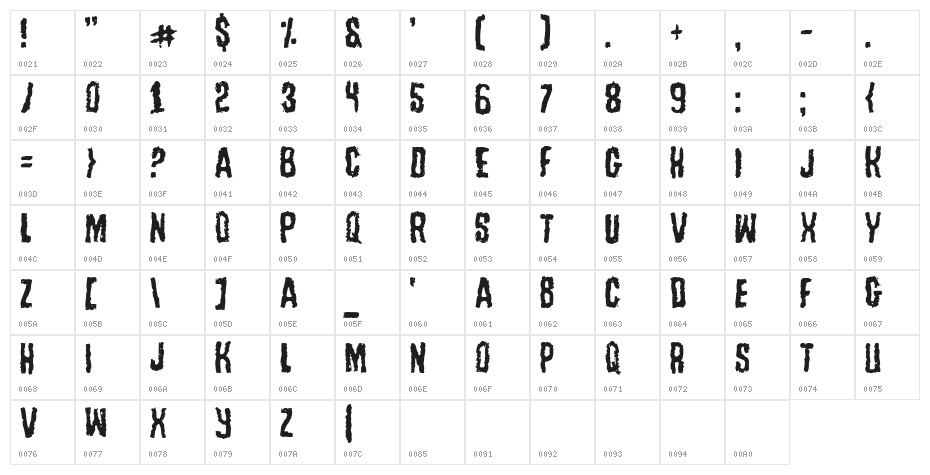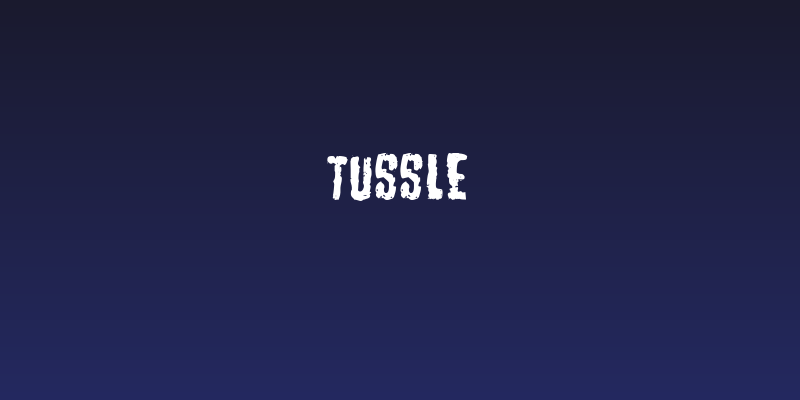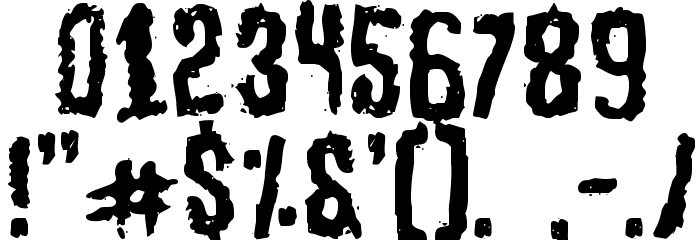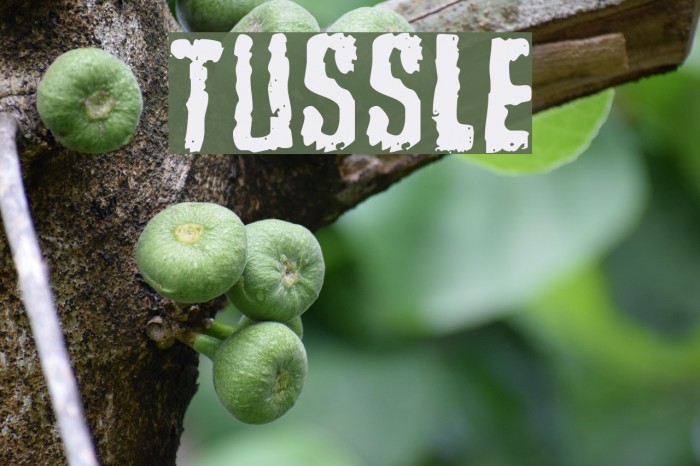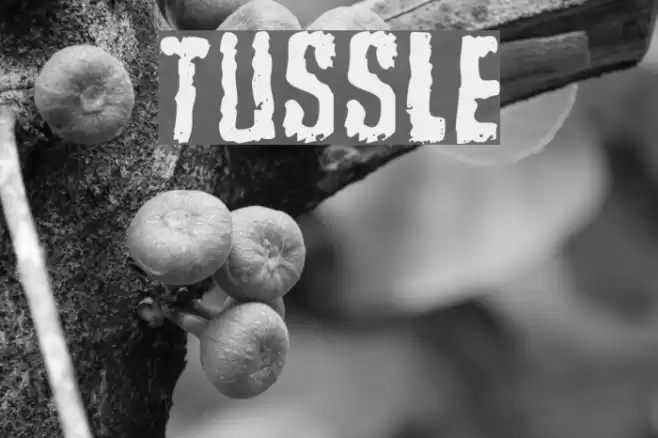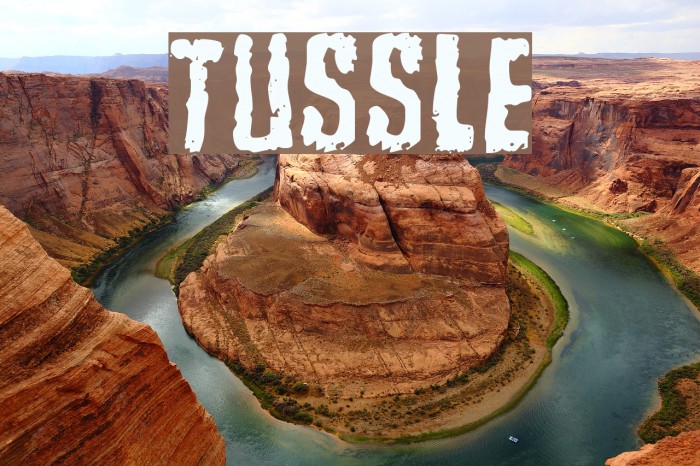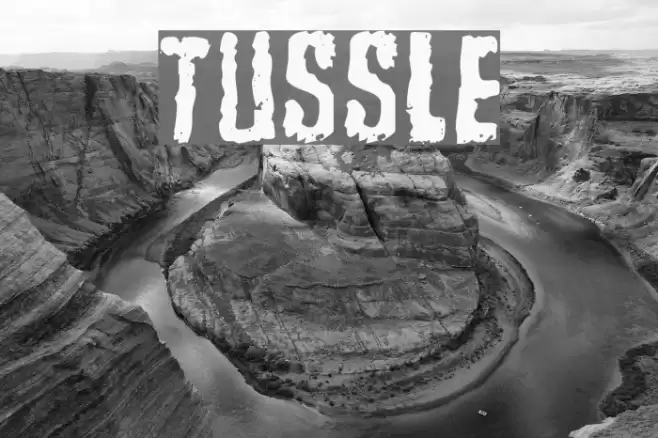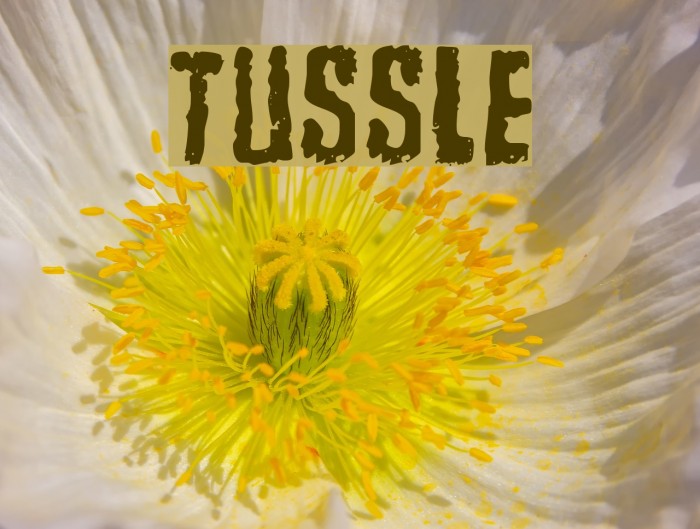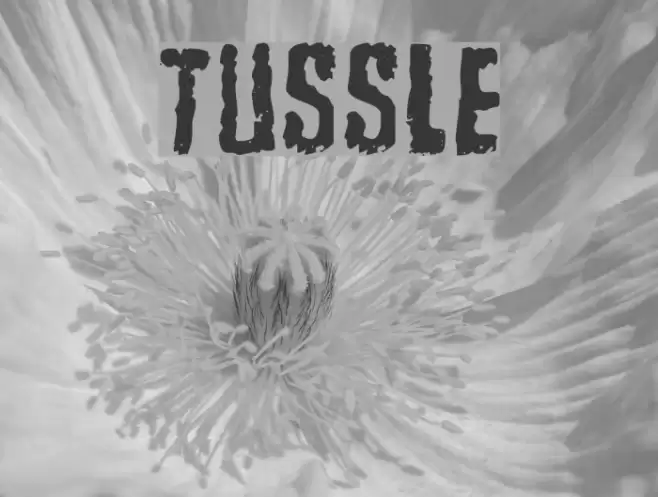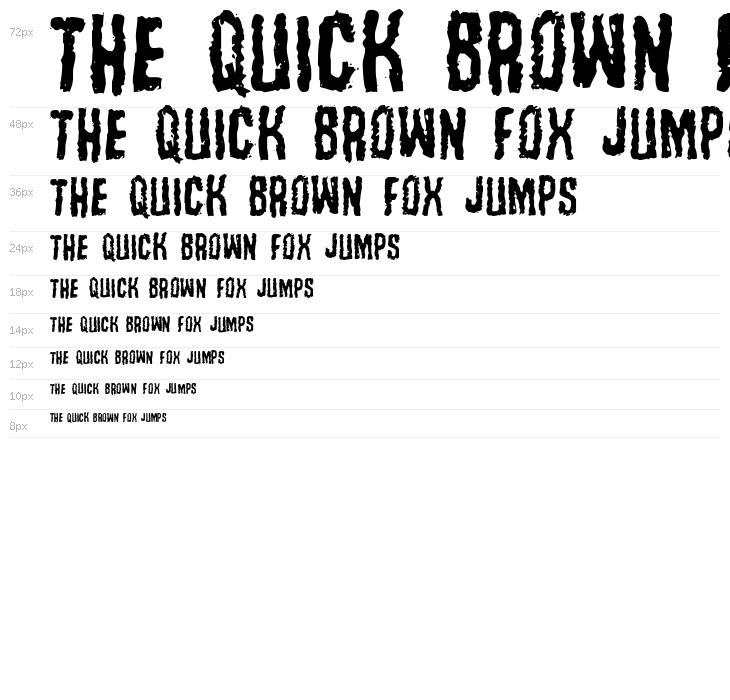
Tussle Font
✎ Distorted Eroded
| الفئات | Distorted Eroded |
| النمط العام | Grunge, Edgy, Urban |
| حالة الاستخدام | Headlines, Posters, Branding |
| مشاريع مقترحة | Ideal for music posters, urban-themed designs, edgy branding, and creative projects needing a gritty look. |